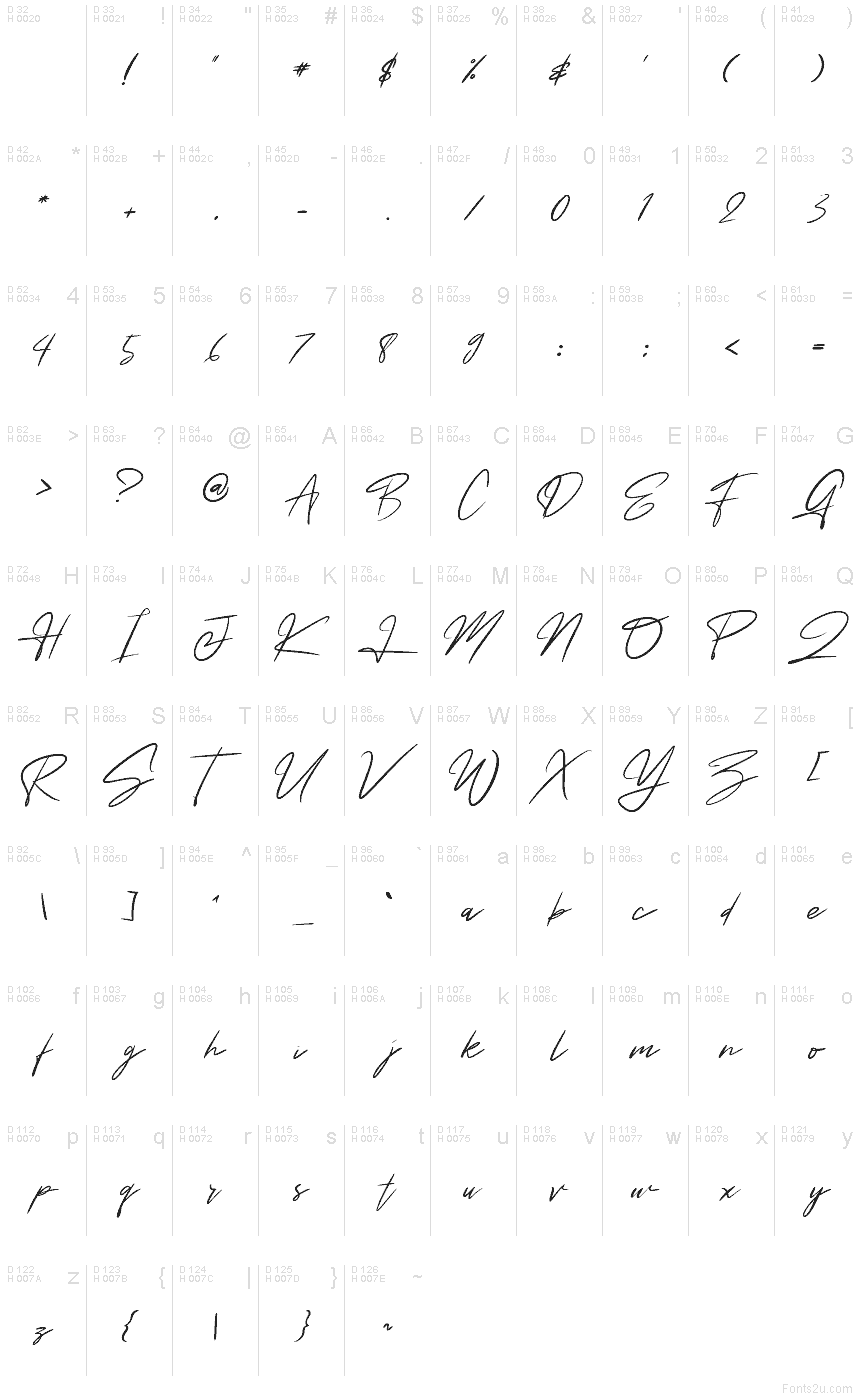
Wonderfill
Wonderfill font by Pustudio is a free cursive handwritten script font. It solves the common “signature-but-readable” challenge with swift, slanted strokes that taper from inky starts to hairline exits, keeping words fluid yet clear. The rhythm is lively—slight baseline bounce, generous loops, and airy spacing—so headlines feel personal without turning messy.
Using Wonderfill, you can give polish to wedding invitations, boutique logos, beauty branding, social posts, product packaging, and photo overlays. This free font’s crisp pressure shifts add emphasis without shouting, and those long entry strokes create graceful word joins that scan quickly. For balance, pair it with a simple geometric sans in all caps, and keep Wonderfill 10–15% larger to maintain that breezy, signature glow.